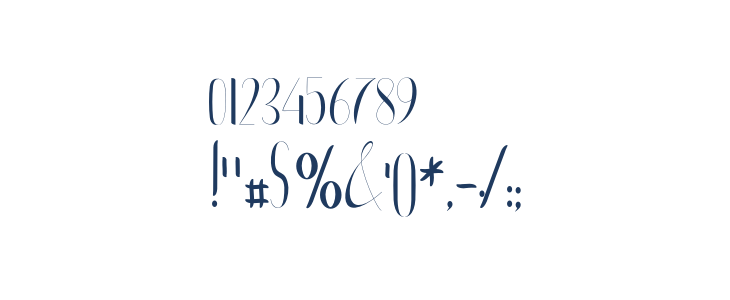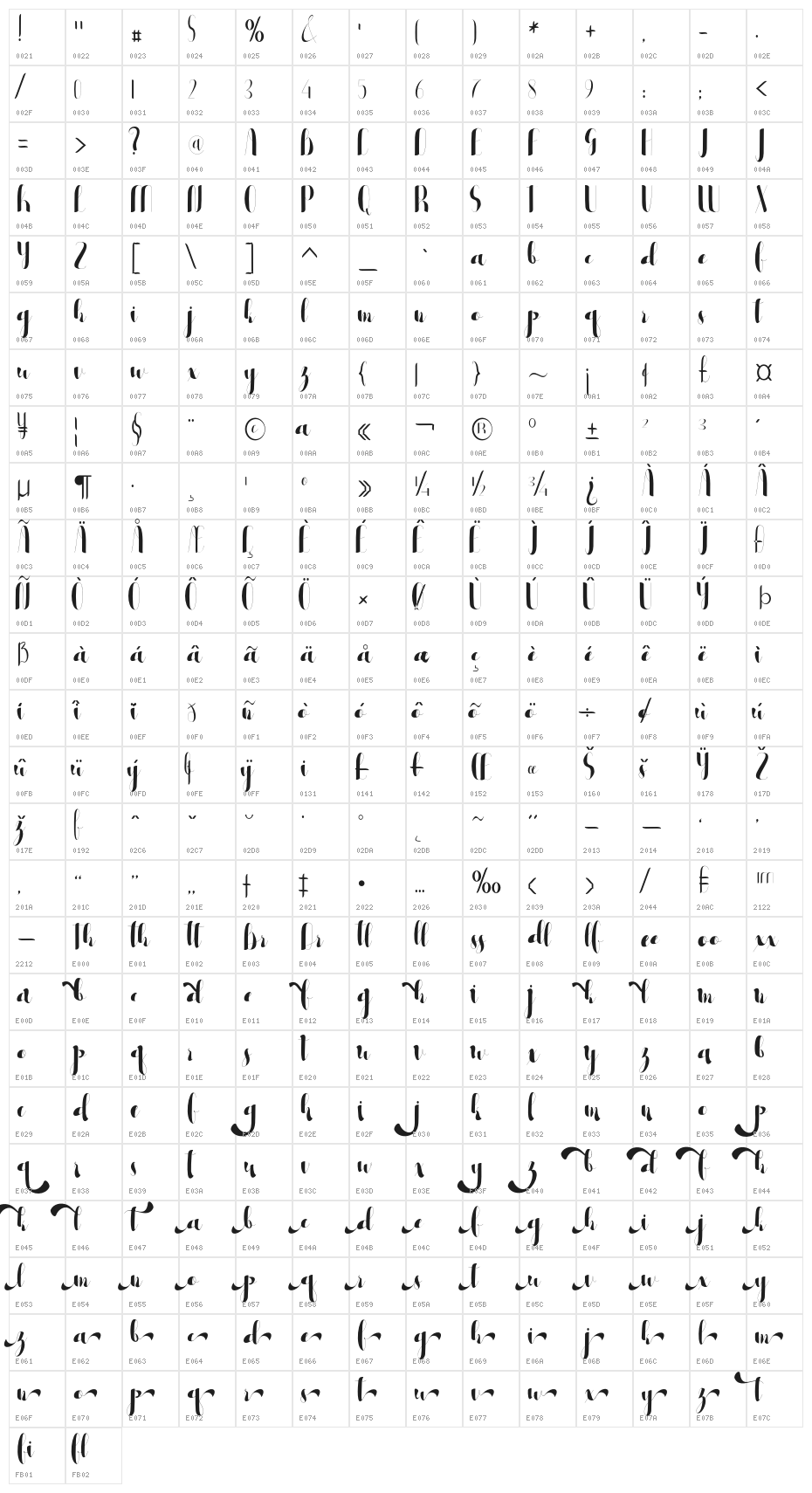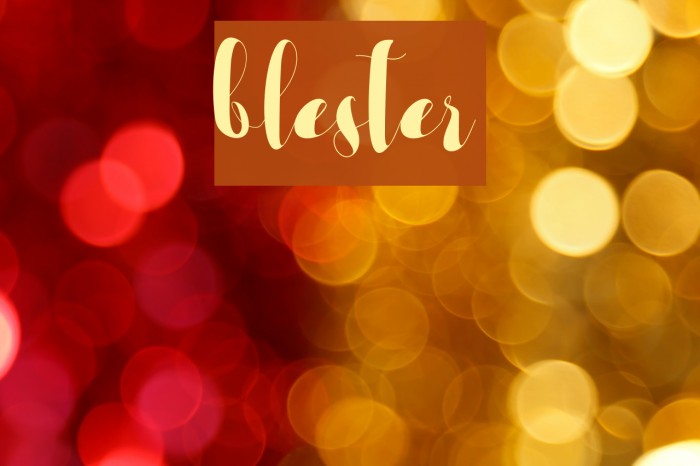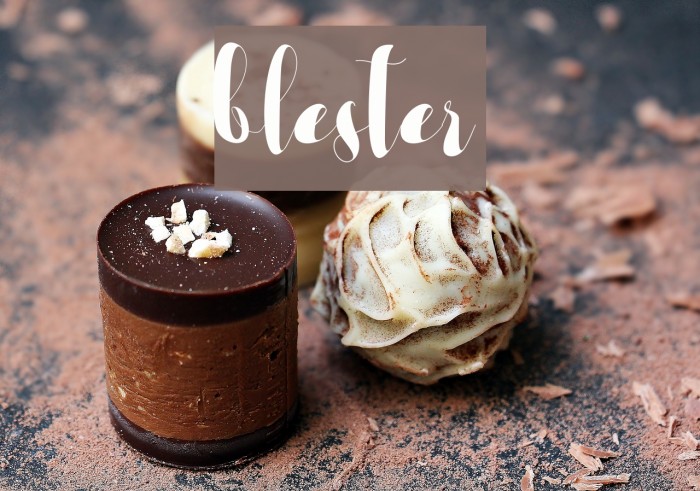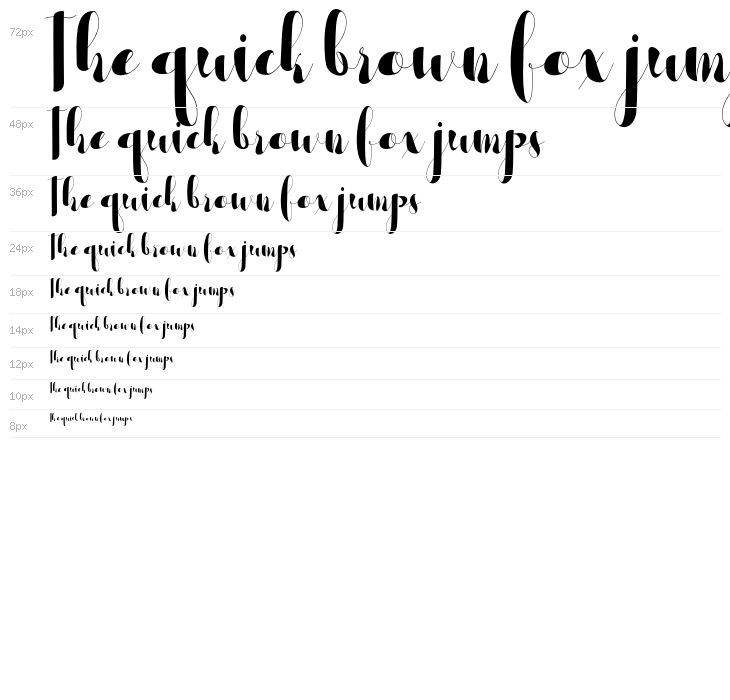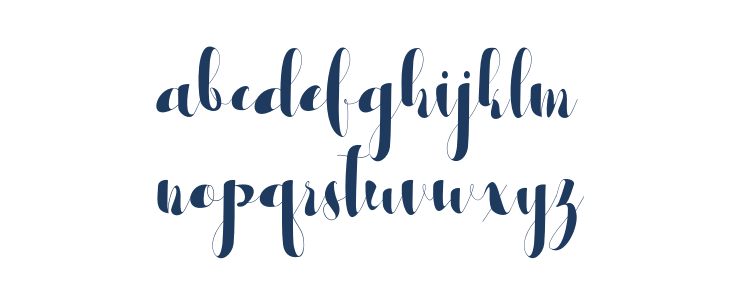
blester Font
blester Description
This font features a unique blend of modern elegance and artistic flair, characterized by its high contrast between thick and thin strokes. The uppercase letters exhibit a tall, slender appearance with a graceful, flowing style, while the lowercase letters maintain a consistent, smooth curvature that complements the overall aesthetic. The numerals are distinct and stylish, matching the font's sophisticated look. Special characters are creatively designed, adding a touch of whimsy and versatility. This font's artistic nature makes it suitable for a variety of creative applications.
| Proposed Projects | Ideal for wedding invitations, branding, fashion magazines, and artistic posters. |